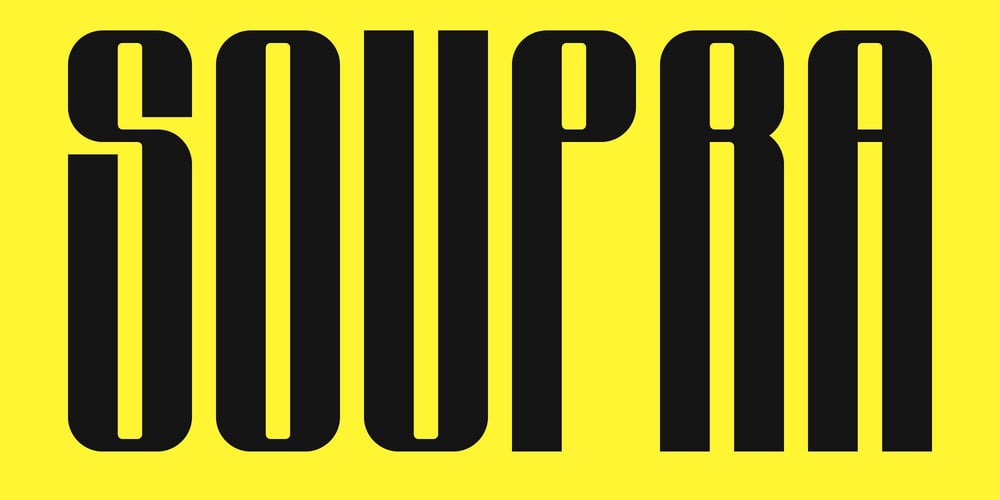
Soupra Font Family was designed by Iwan Alwan and published by Artiveko. Soupra contains 2 styles and family package options. Soupra is a sleek condensed sans serif font by Iwan Alwan, featuring narrow, modern letterforms that combine elegance with efficiency. Perfect for branding, headlines, posters, and digital interfaces, Soupra offers a clean and space-saving design that ensures readability and style. With multilingual support, ligatures, and alternates, Soupra is versatile yet contemporary, making it ideal for projects that demand a compact and polished aesthetic.